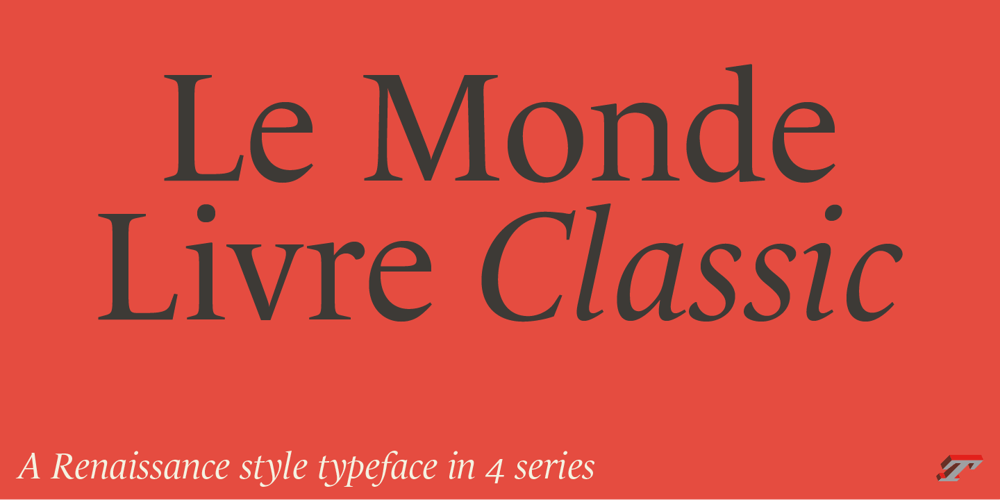
Le Monde Livre Classic Std
Le Monde Livre Classic Std font
Le Monde Livre Classic Std Font Family was designed by Jean François Porchez and published by Typofonderie. Le Monde Livre Classic Std contains 4 styles and family package options. A Renaissance style typeface in 4 seriesLe Monde Livre Classic works beautifully on text and titling settings. Designed as an extension of Le Monde Livre, this family distinguishes itself by its historical forms and by its numerous stylistic effects. Le Monde Livre Classic’s italics follow the models of the Renaissance and feature italic capital and lowercase swashes.Le Monde Livre Classic works beautifully for book typography, magazine settings from text to display.Le Monde Livre Classic revisitedType Directors Club .44 1998European Design Awards 1998